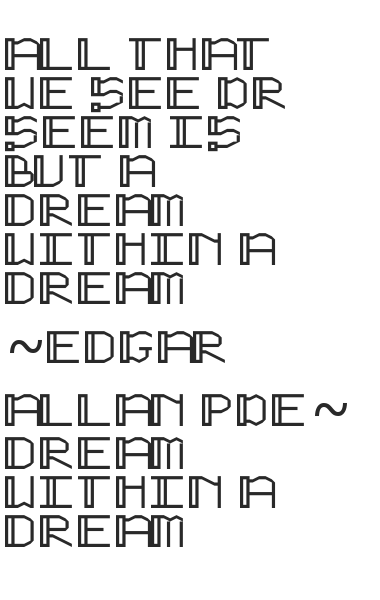
Tester V
by Electricgator
I made this testing FS out. I think it is a success! And turned out well! It's just Caps right now. But I'll keep working on it!
Here is an example of the font in text
There's a lot to like here - but you might need to tidy up a few bits :)
The M looks too narrow to me and the top of the tail in Q looks a bit adrift.
To lose the gaps at the joins of the M you will need 'brickstacking' ... djnippa has done a great guide to this
Keep up the good work.
Just remembered - the 'letterwidth' on A seems wrong - Advanced/View/Letter Width
All right I'll look into that.
And I'll post a in-text example of with the changes.
I fixed the A. Sorry it took so long... Haven't had very much time.